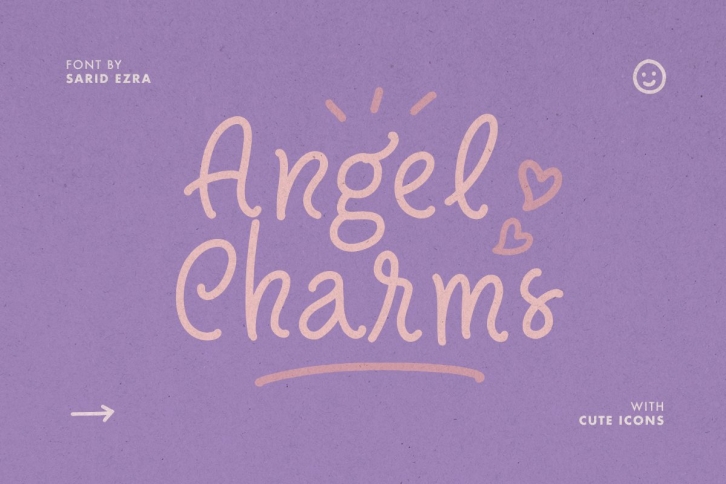
Angel Charms is a great font that was designed by Saridezra. Imagine the amount of combinations you can create using this font! The archive is 19.25 MB and it was released on April 11, 2021. Angel Charms looks beautiful on wedding invitations, greeting cards, logos, posters, labels, t-shirt designs, logos, business cards and is perfect for use in ink or watercolor works, fashion, magazines, packaging and food menus, children's books and more!